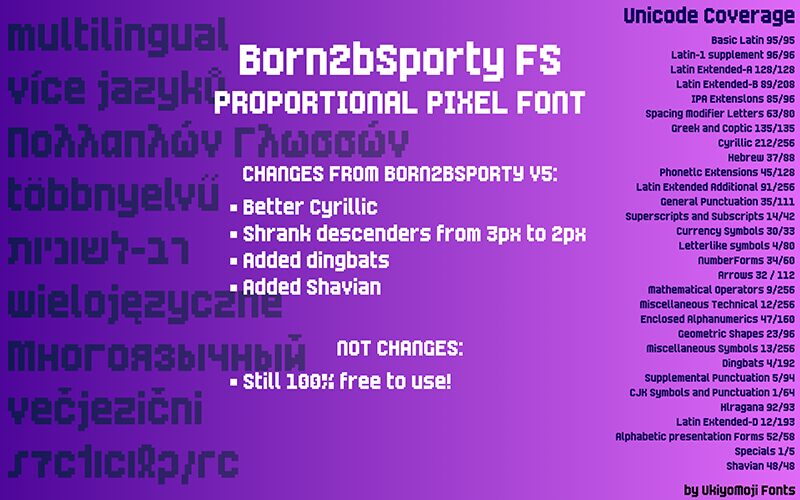
Born2bSporty FS font by UkiyoMoji Fonts is characterized by its bold pixelated design, which delivers a clean and dynamic visual appeal. Both athletic and futuristic in nature, the typeface stands out against backgrounds of any color. It has a modular, geometric, blocky format that makes it pretty versatile in use regardless of any background.
The free bitmap font works for video game designs or related publications as well as workout branding projects for sneakers or apparel. Also, this choice caters to fitness video ideas and sports team branding in addition to movie posters.